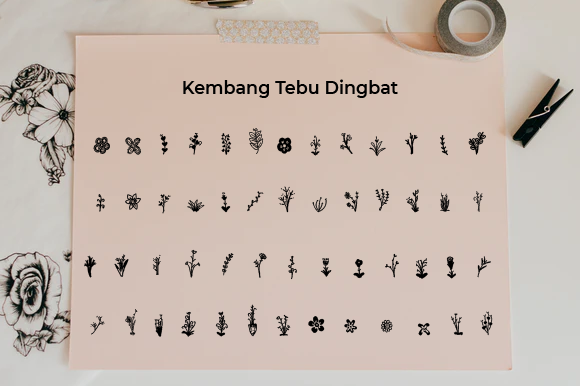
Kembang Tebu Font
About Kembang Tebu Font
Kembang Tebu is indeed a unique and interesting dingbats font that can add a touch of creativity and uniqueness to your designs. With its distinct style and collection of doodles, this font can make your creative ideas come alive in a visually captivating way. Here are some ways you can use the Kembang Tebu font to enhance your projects:
1. Artistic Prints: Incorporate the Kembang Tebu font into your artistic prints and notice how it adds a unique flair to your designs. Whether you’re creating posters, art prints, or illustrations, use the font’s interesting doodles as decorative elements, borders, or even as part of the artwork itself. The font’s distinct style will make your prints stand out and capture attention.
2. Branding and Logo Design: Make your branding and logo design stand out with the Kembang Tebu font. Use the font’s unique doodles to create an eye-catching and memorable visual identity for your brand. The distinct and interesting style of the font will help your brand stand out from the competition and leave a lasting impression.
3. Editorial Design: Add a creative touch to your editorial design projects with the Kembang Tebu font. Whether you’re designing magazine spreads, book covers, or editorial layouts, incorporate the font’s interesting doodles as graphic elements or as part of the typography. The font’s uniqueness will bring a fresh and visually appealing aspect to your editorial designs.
4. Packaging Design: Make your product packaging design pop with the Kembang Tebu font. Use the font’s intriguing doodles as decorative elements or patterns on your packaging. Whether it’s for food products, beauty products, or any other type of packaging, the font’s unique style will make your products visually appealing and memorable.
5. Social Media Graphics: Enhance your social media graphics with the Kembang Tebu font. Use the font’s interesting doodles as icons, decorative elements, or borders in your posts, stories, and cover images. The unique and intriguing style of the font will help your social media content stand out and grab attention.
6. Handmade Crafts: Incorporate the Kembang Tebu font into your handmade crafts and notice how it adds a unique touch. Whether you’re creating handmade cards, scrapbooking, or other DIY projects, use the font’s doodles as stencils, embellishments, or decorative elements. The font’s interesting and unique style will make your crafts visually appealing and one-of-a-kind.
Remember to explore different combinations of the Kembang Tebu font, other typography, and colors to create visually cohesive designs that capture the essence of your creative ideas. Let the unique and interesting style of the Kembang Tebu font inspire your creativity and breathe life into your projects!